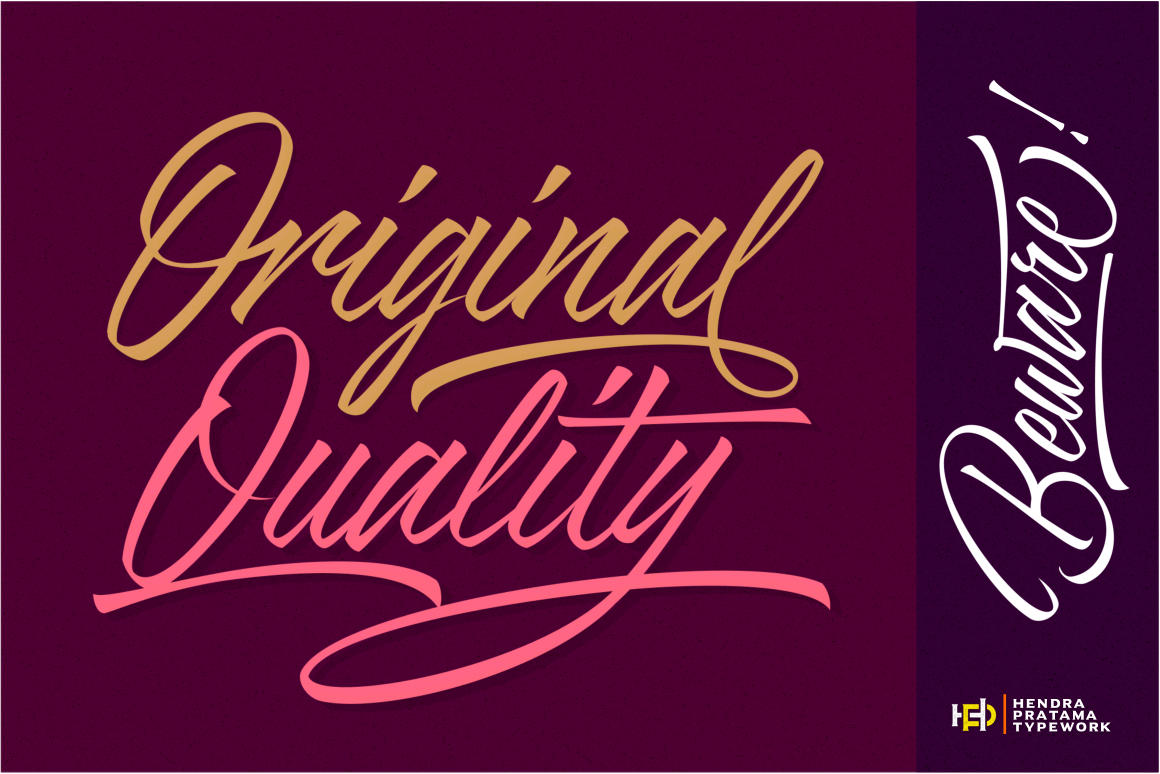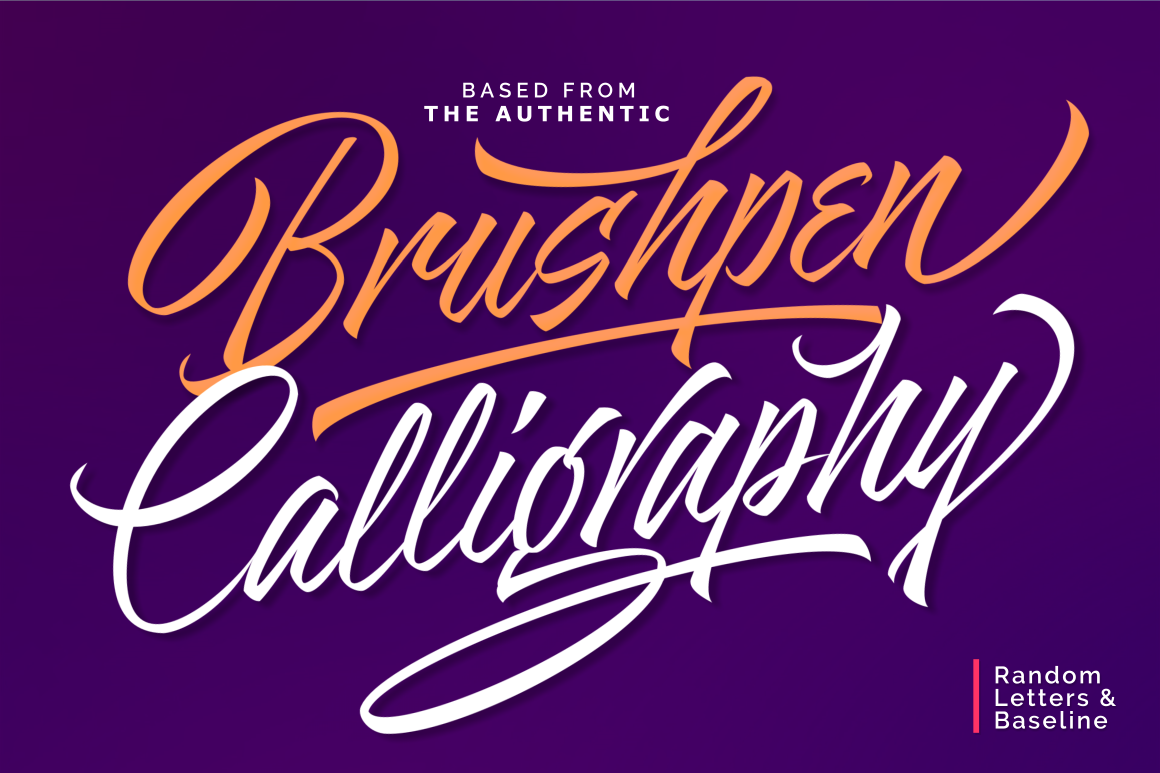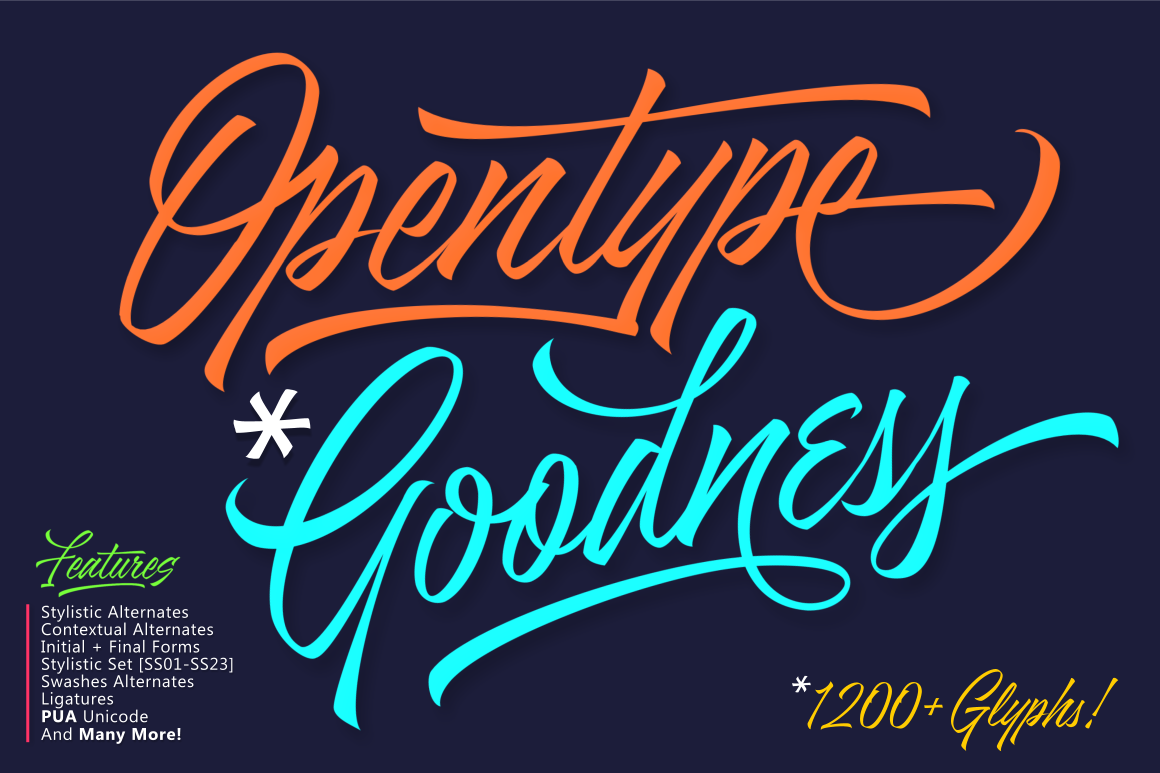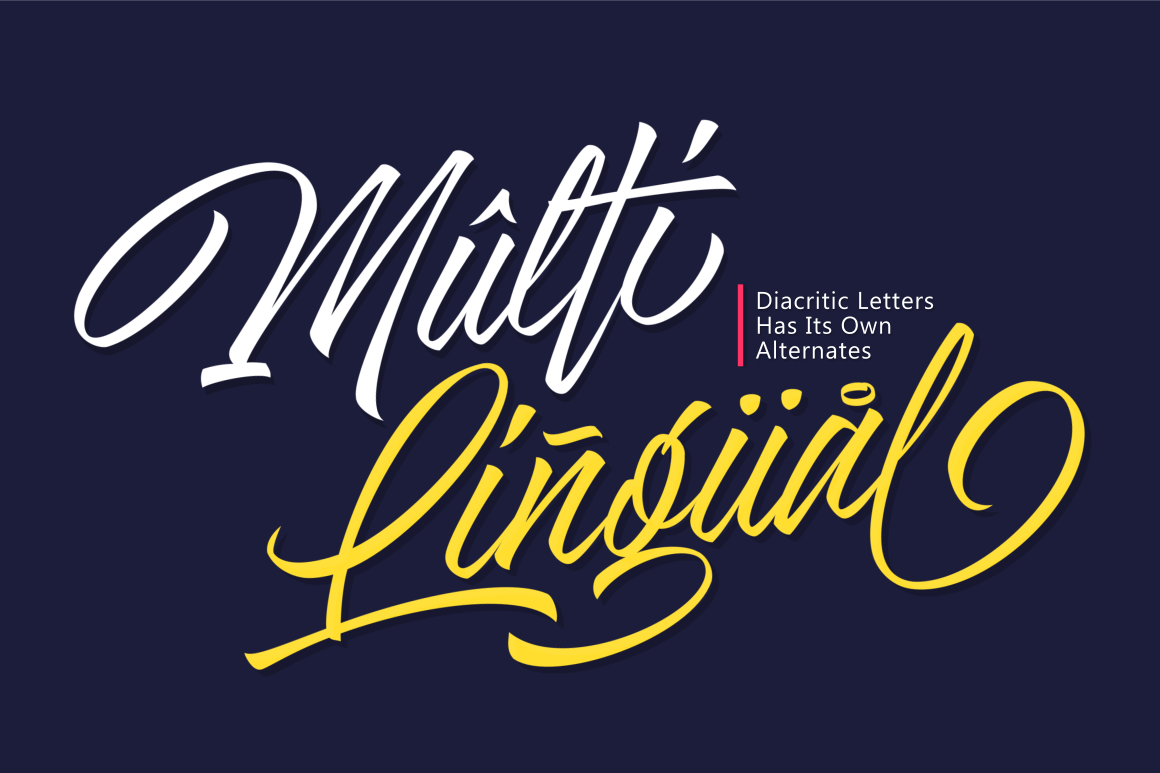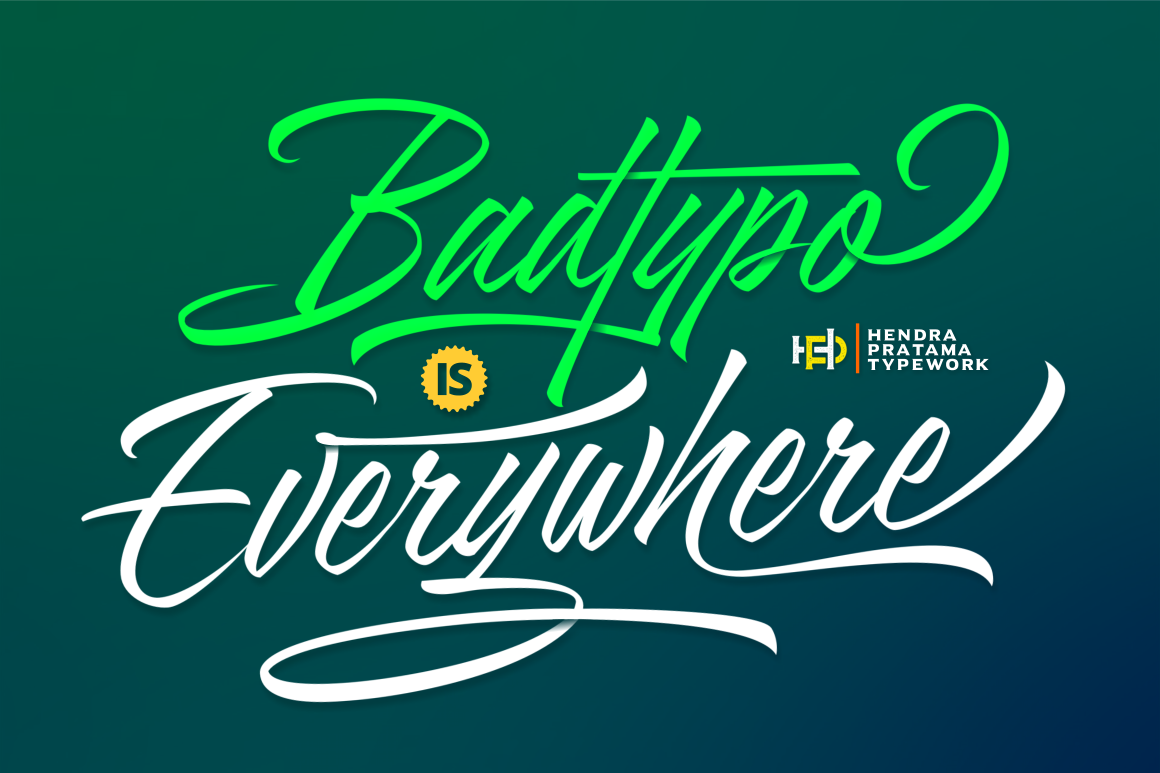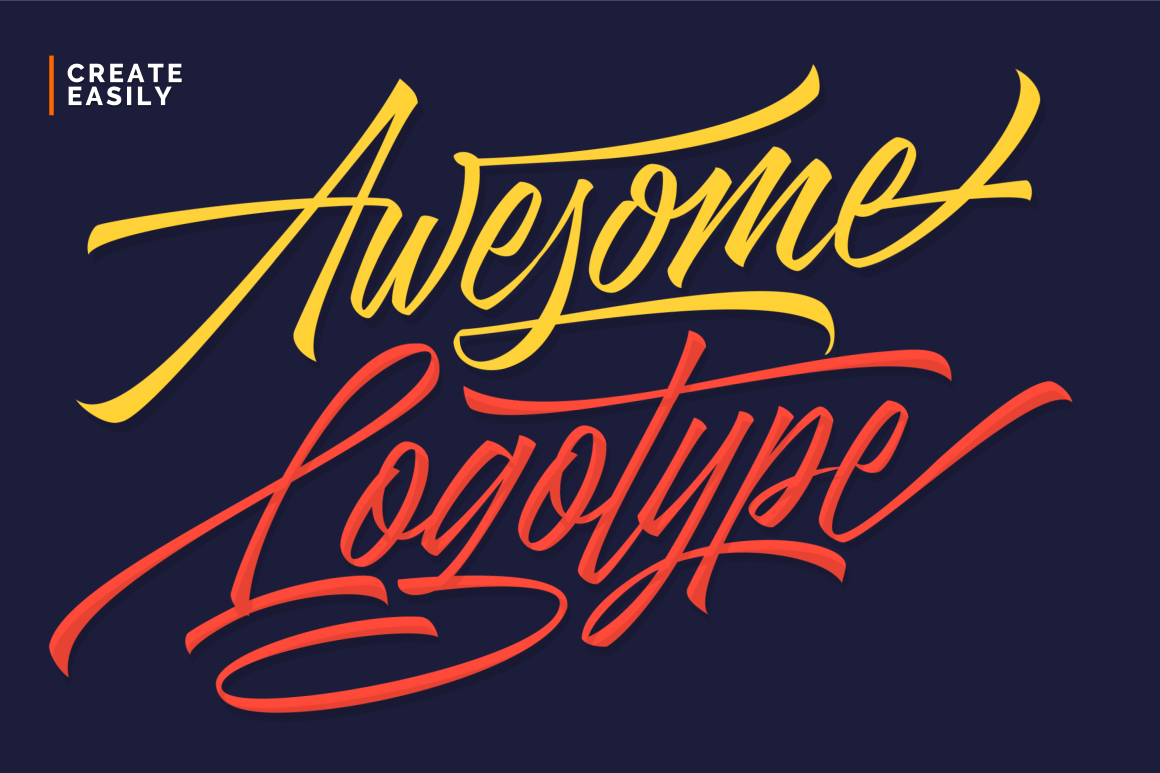
Azkia Script Font: Elevate Your Designs with Handmade Brushpen Calligraphy
Are you tired of using the same old fonts in your designs? Do you want to add a touch of elegance and sophistication to your projects? Look no further than Azkia Script Font, a stunning handmade brushpen calligraphy font that is sure to take your designs to the next level.
What is Azkia Script Font?
Azkia Script is a beautiful, one-of-a-kind font that was created using a brushpen and paper. Each of the 1200 unique glyphs was carefully sketched and then digitally redrawn to ensure a perfect, consistent look. The result is a font that looks like it was written by hand, with all the imperfections and charm that come with it.
Features of Azkia Script Font
• Handmade with love: Azkia Script Font is a true handmade font, created with a brushpen and paper. Each glyph was carefully crafted to ensure a unique and authentic look.
• 1200 unique glyphs: With 1200 unique glyphs, Azkia Script Font is a highly versatile font that can be used for a wide range of projects, from wedding invitations to branding and packaging.
• Perfect for hand-lettering style designs: Azkia Script Font is perfect for designers who want to create hand-lettering style designs that look like they were written by hand.
• Consistent look: Despite being a handmade font, Azkia Script Font has a consistent look that will flow beautifully on your screen.
Why Choose Azkia Script Font?
There are many reasons why Azkia Script Font is a great choice for designers and crafters. Here are just a few:
• Add a touch of elegance to your designs: Azkia Script Font is perfect for designers who want to add a touch of elegance and sophistication to their projects.
• Stand out from the crowd: With its unique, handmade look, Azkia Script Font is sure to help your designs stand out from the crowd.
• Perfect for a wide range of projects: Azkia Script Font can be used for a wide range of projects, from wedding invitations to branding and packaging.
Tips and Tricks for Using Azkia Script Font
Here are a few tips and tricks for using Azkia Script Font:
• Use it for headings and titles: Azkia Script Font is perfect for headings and titles, where you want to make a big impact.
• Experiment with different colors: Azkia Script Font looks great in a variety of colors, so don’t be afraid to experiment and find the perfect color for your design.
• Pair it with other fonts: Azkia Script Font pairs well with other fonts, so try pairing it with a sans-serif font for a beautiful contrast.
Azkia Script Font is a stunning handmade brushpen calligraphy font that is sure to elevate your designs to the next level. With its unique, authentic look and 1200 unique glyphs, Azkia Script Font is perfect for designers and crafters who want to add a touch of elegance and sophistication to their projects. So why wait? Download Azkia Script Font today and see the beautiful results for yourself.